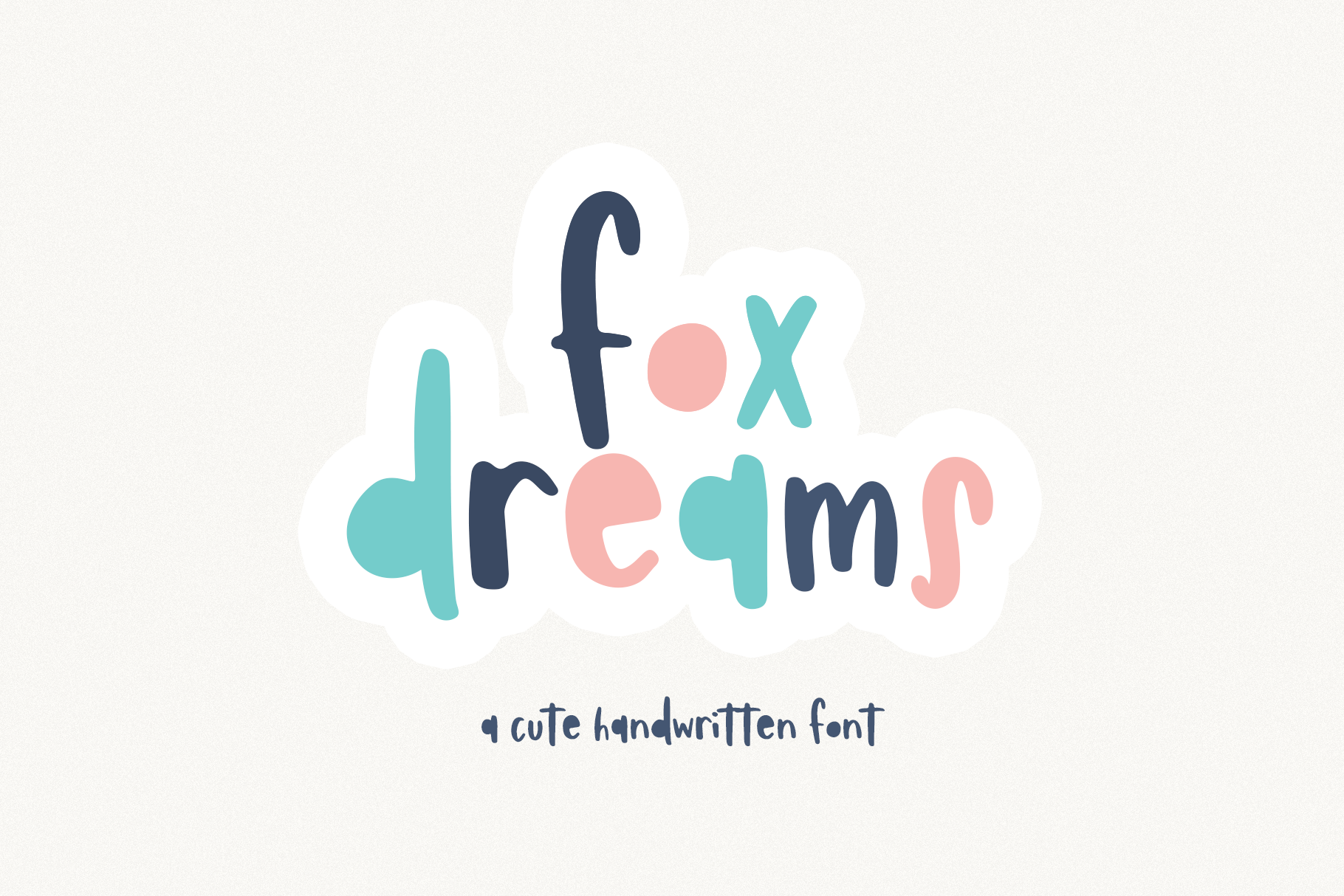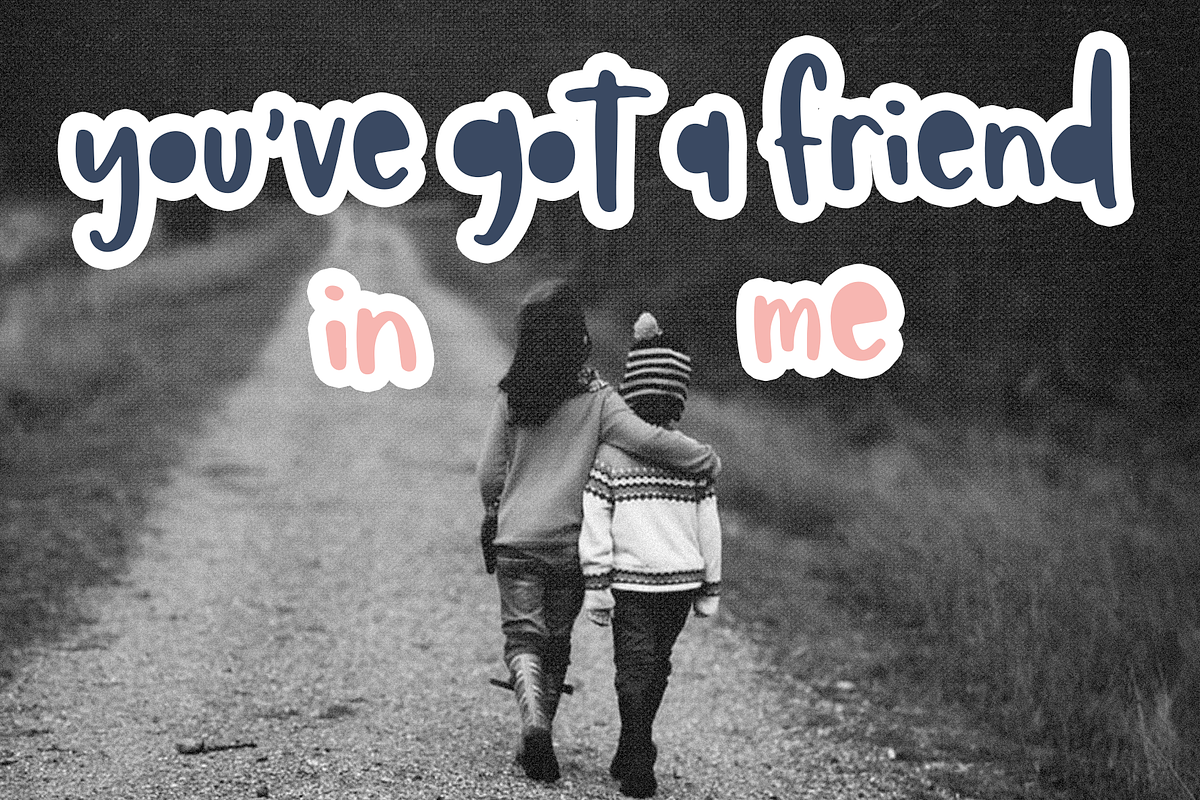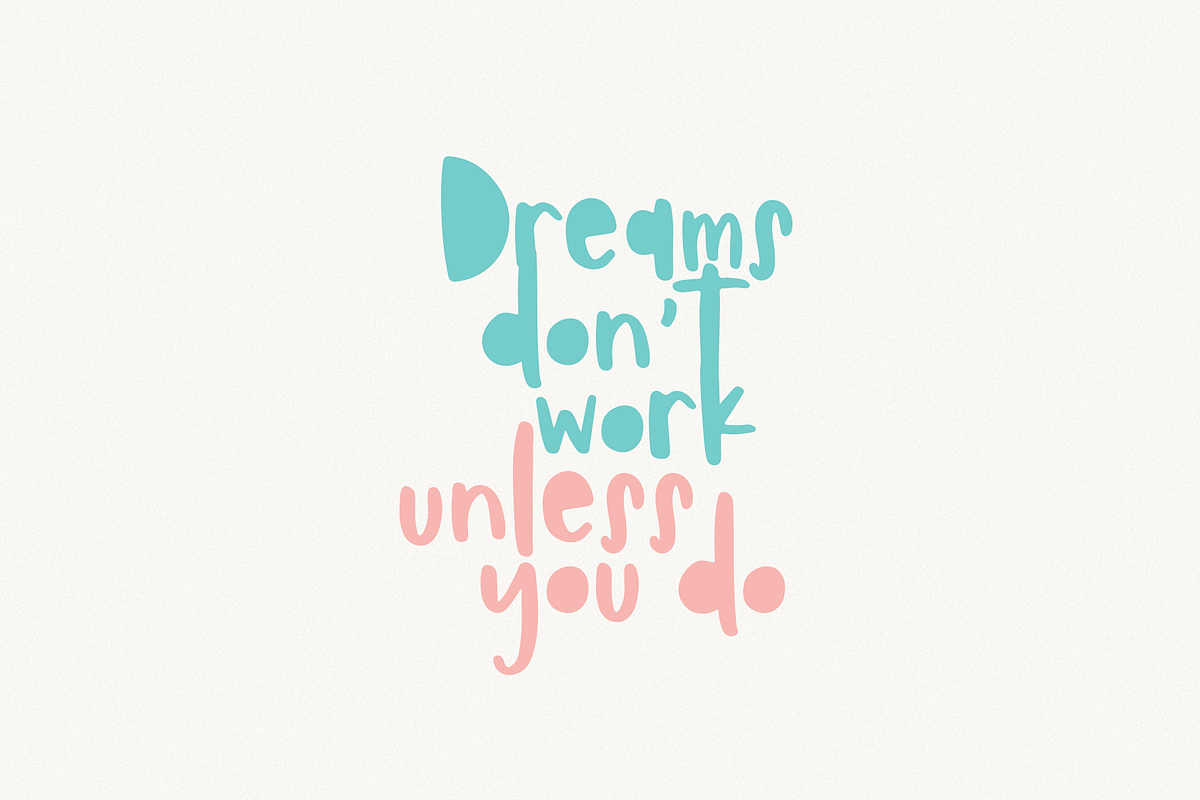
Fox Dreams | Cute Handwritten Font
Fox Dreams is a cute handwritten font. This open letters are solid but you can access regular alternate letters.
This font is perfect for children's decor, branding, blogs, logos, shits, mugs, invitations, and more!
Most accent characters are included.